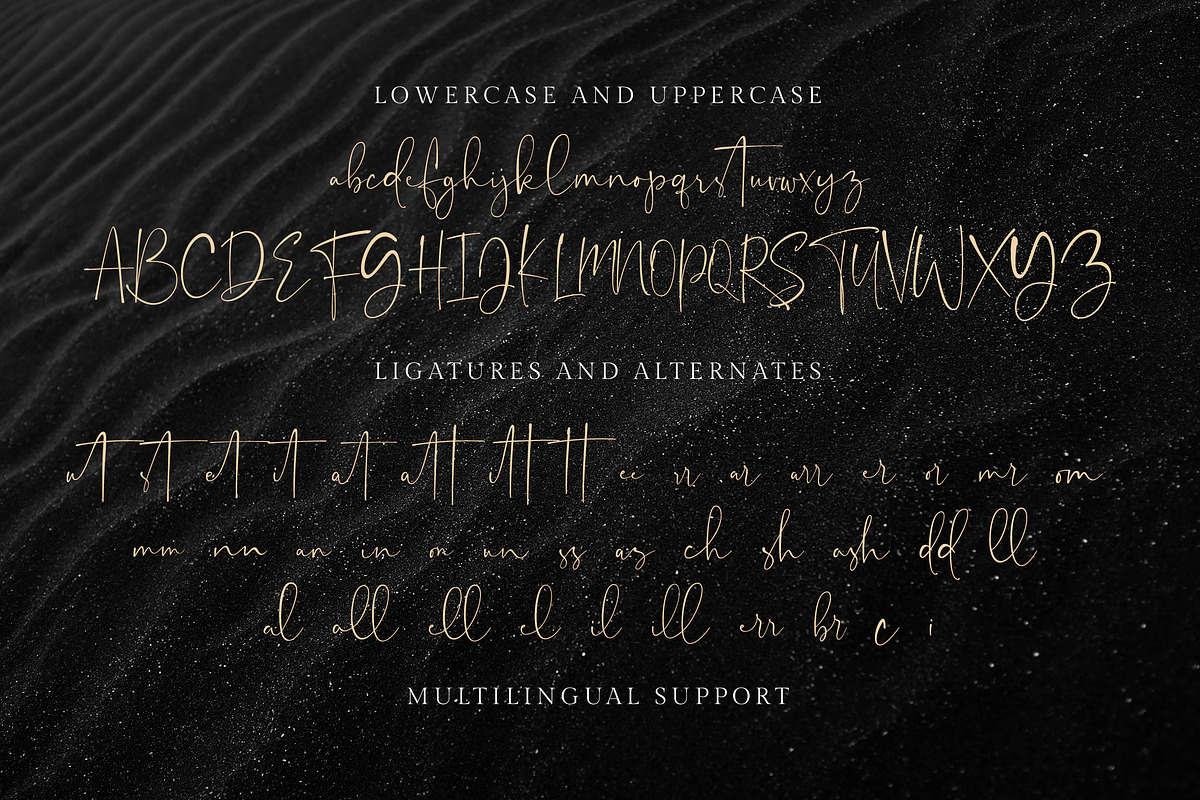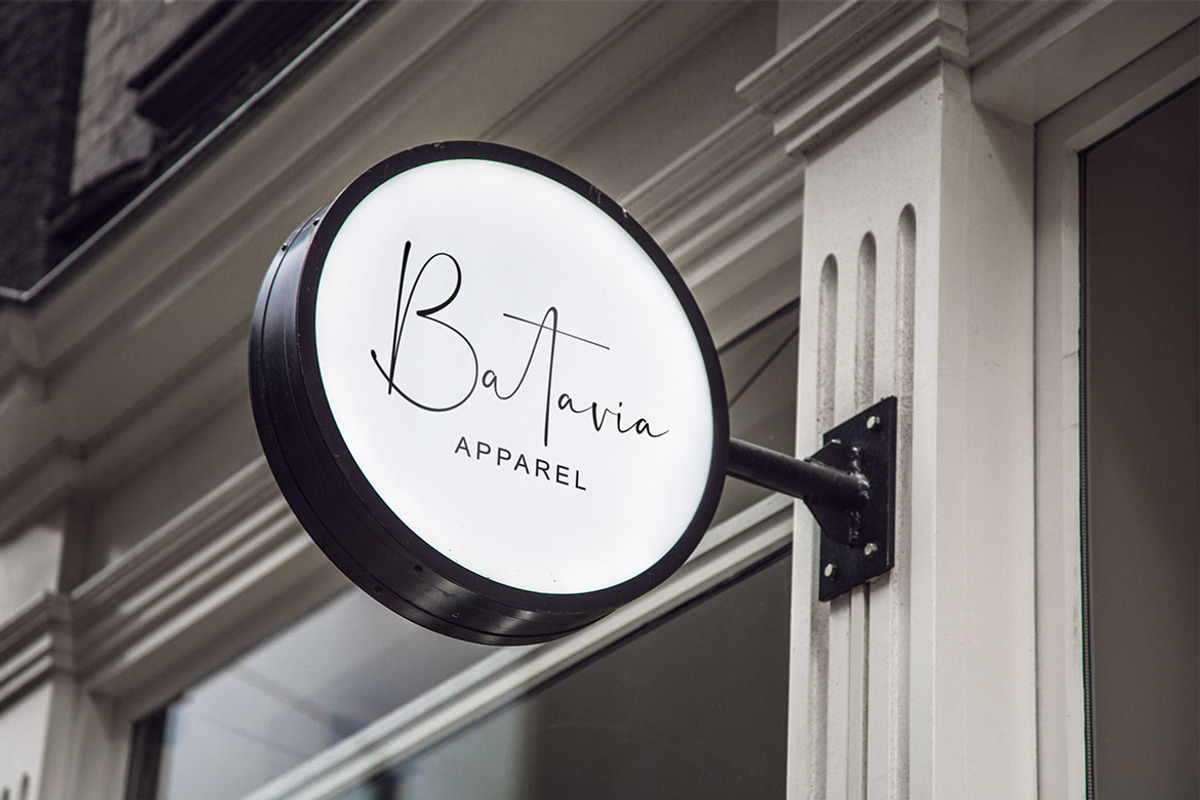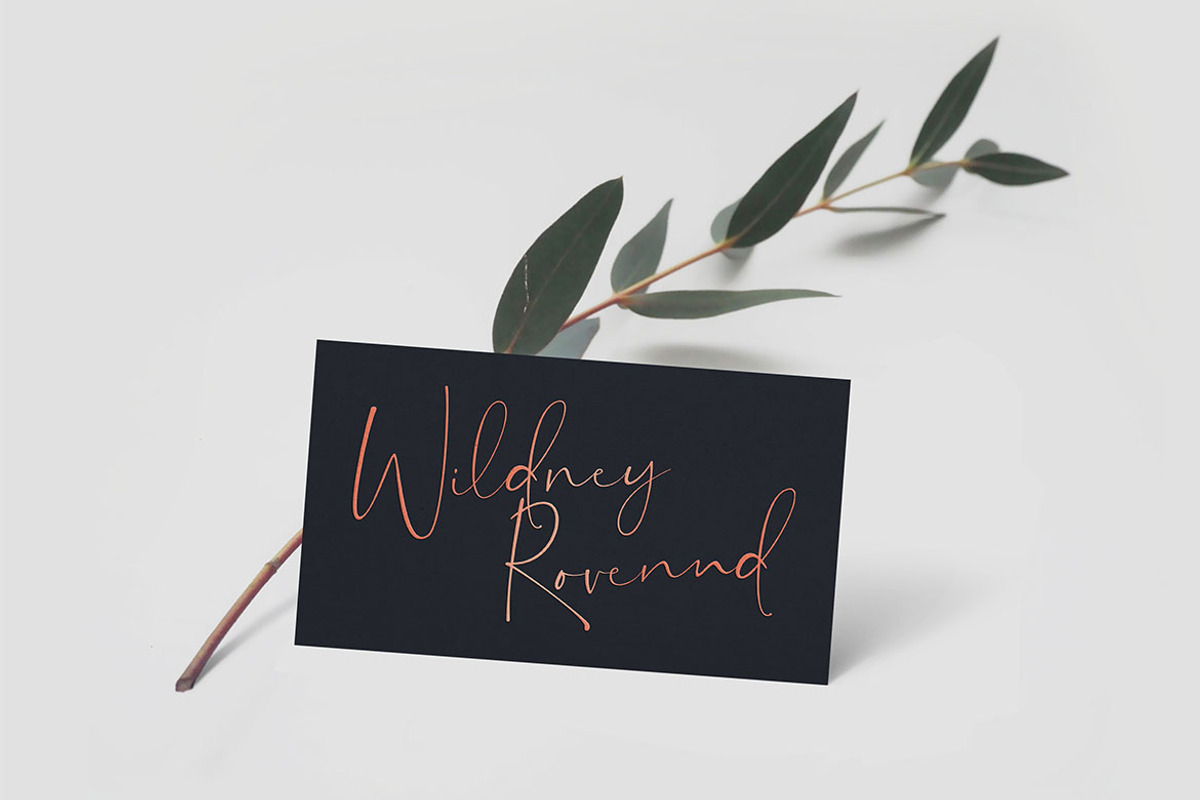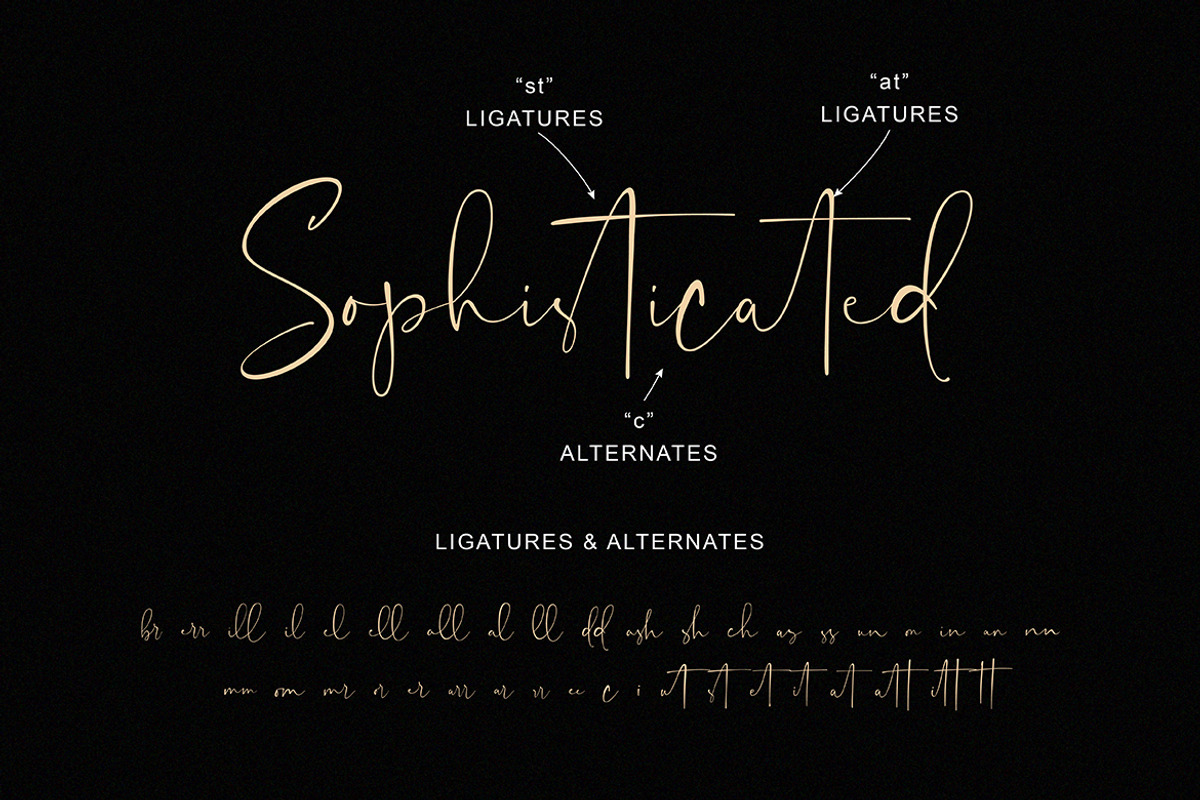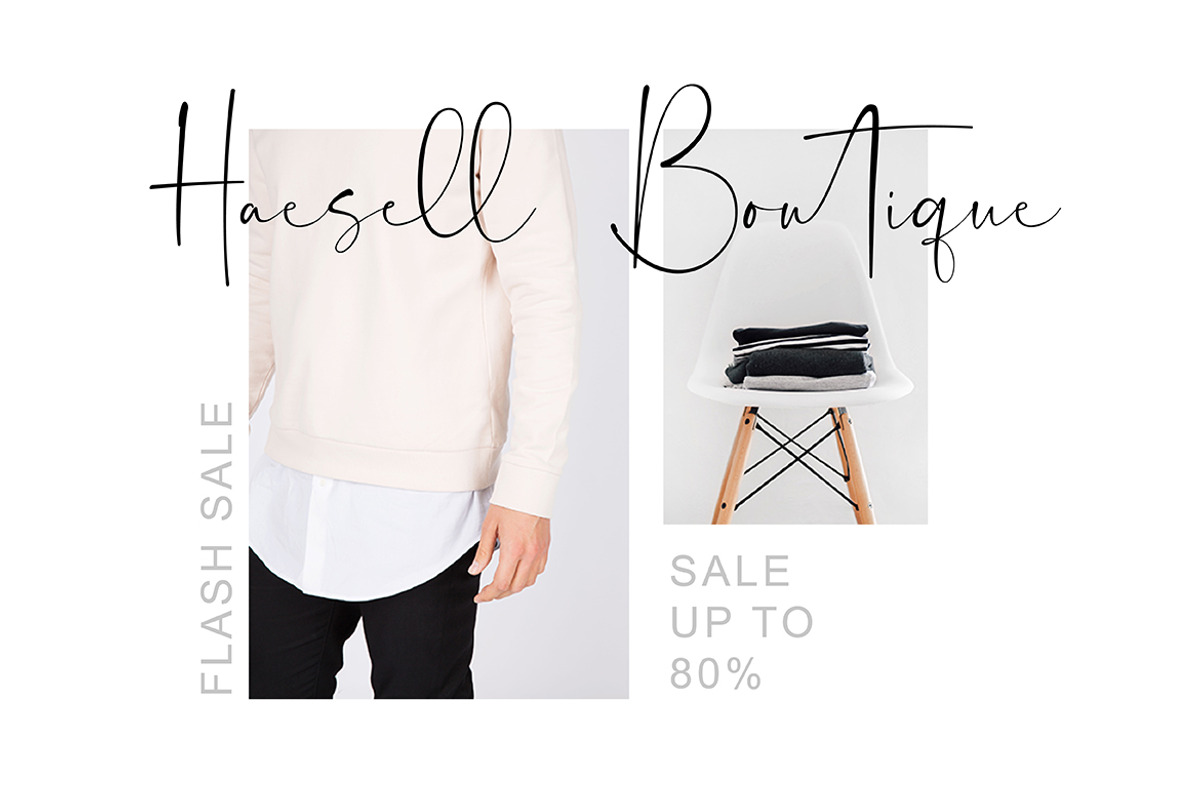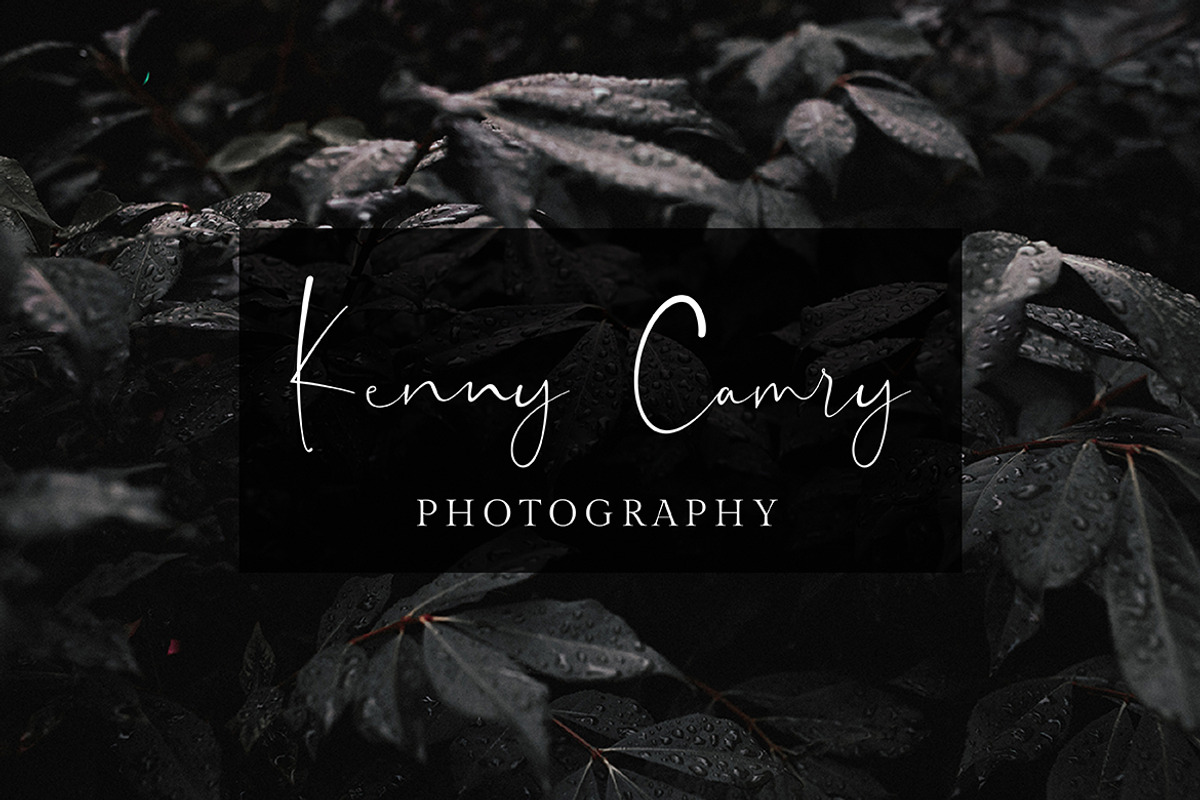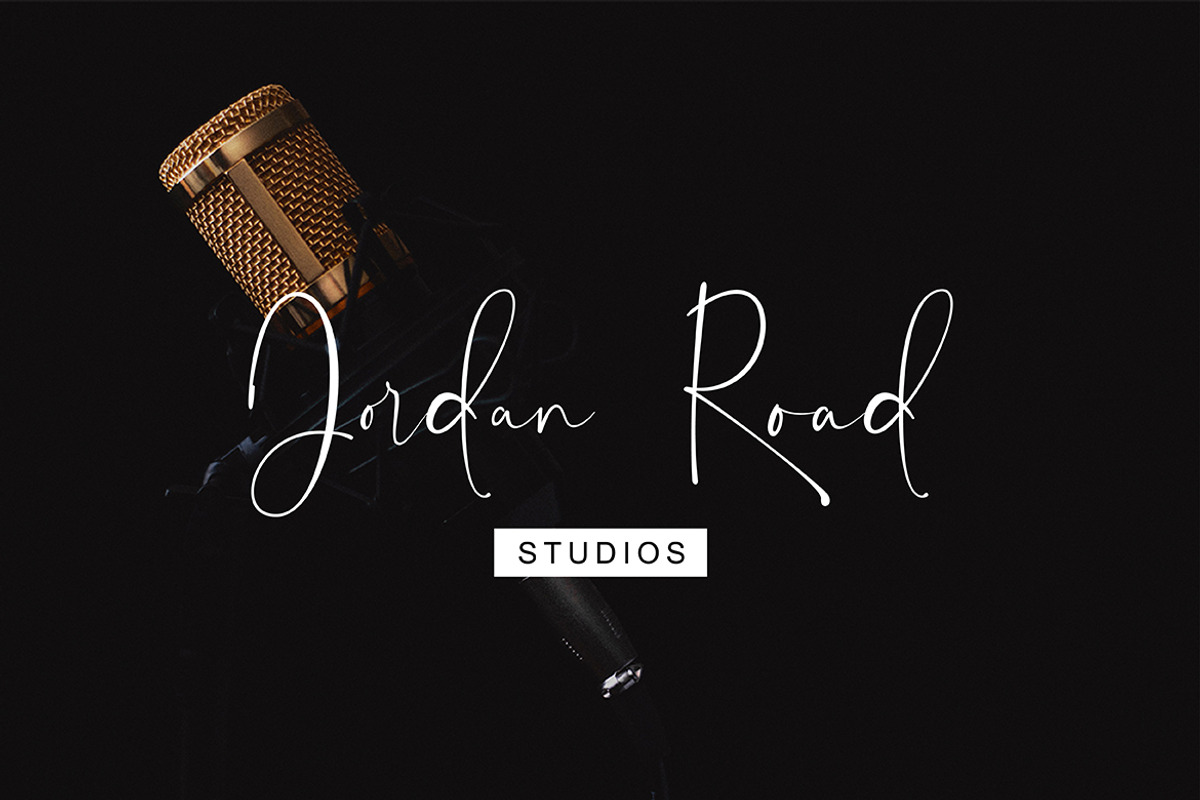
Undercut - Stylish Signature Font
Undercut script is a font inspired by an undercut hairstyle that looks masculine. It is suitable for your work that requires a natural and masculine signature style.
Foreign languages support: ÀÁÂÃÄÅÆÇÈÉÊËÌÍÎÏÐÑÒÓÔÕÖØÙÚÛÜÝßàáâãäåæçèéêëìíîïðñòóôõöøùúûüýÿ
Undercut - Stylish Signature Font by Ef Studio fits naturally into Branding, posters, packaging, typography.